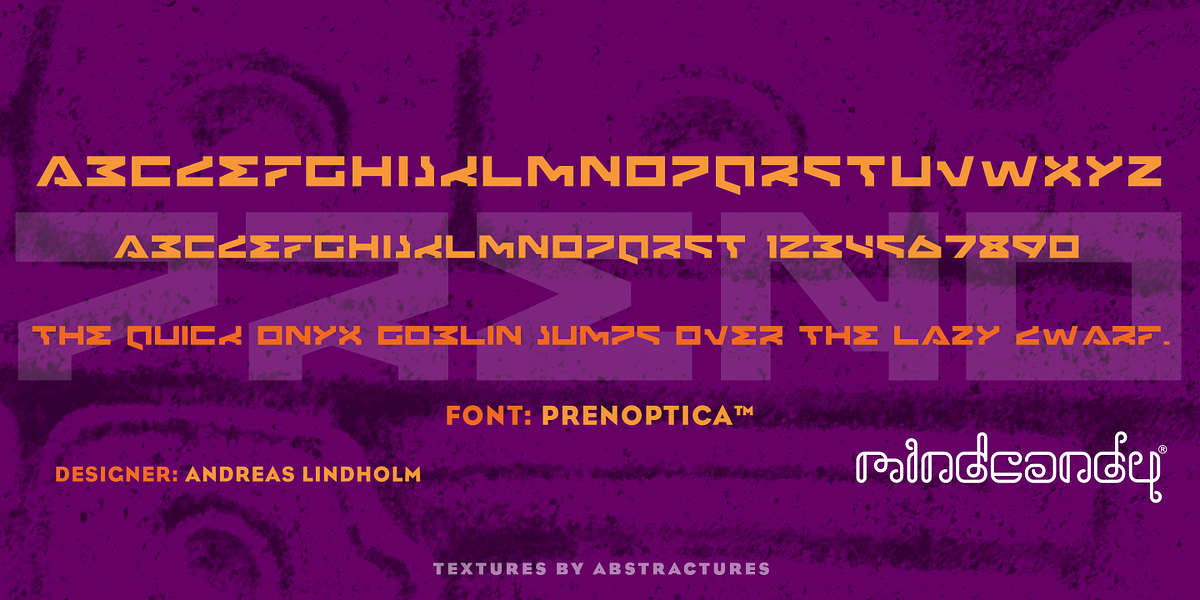
Prenoptica™
This font is a geometric sans serif with a distinct square shape. Its all-caps design and bold strokes create a strong visual impact reminiscent of retro techno and sci-fi aesthetics. It would be well-suited for headlines, branding, and logos where a futuristic and assertive feel is desired.